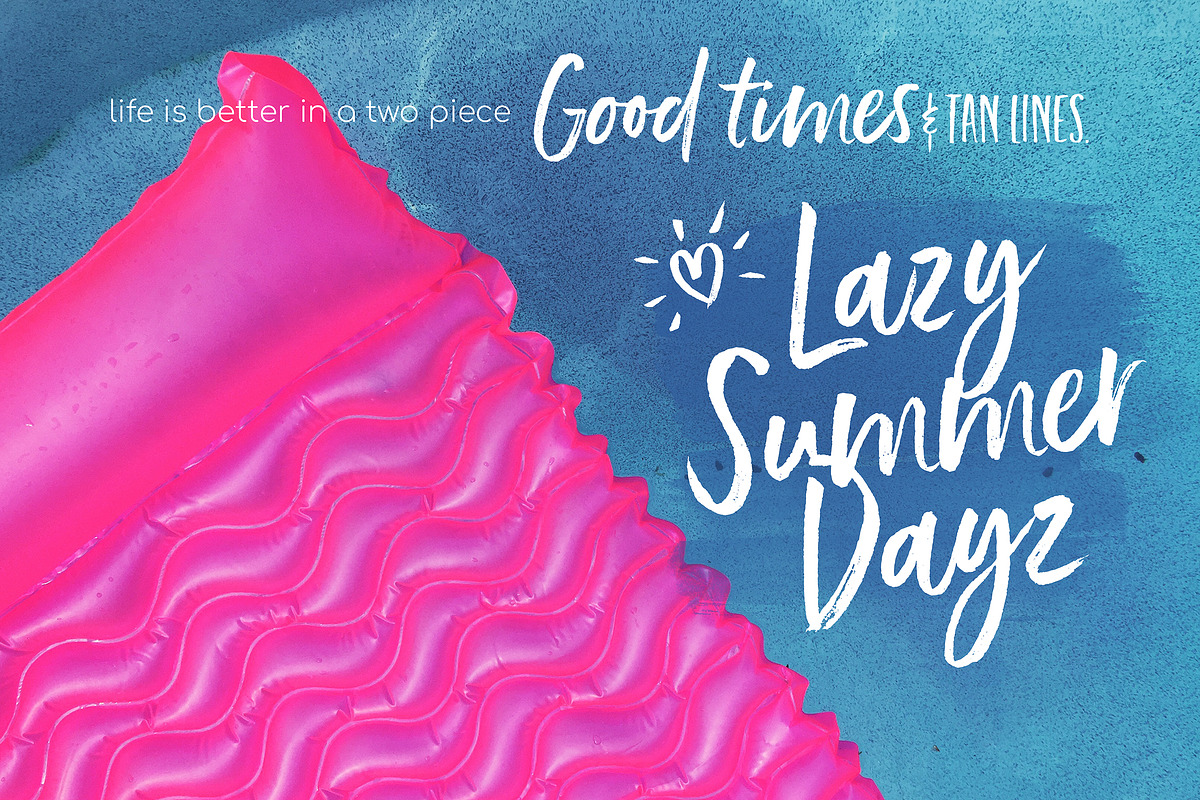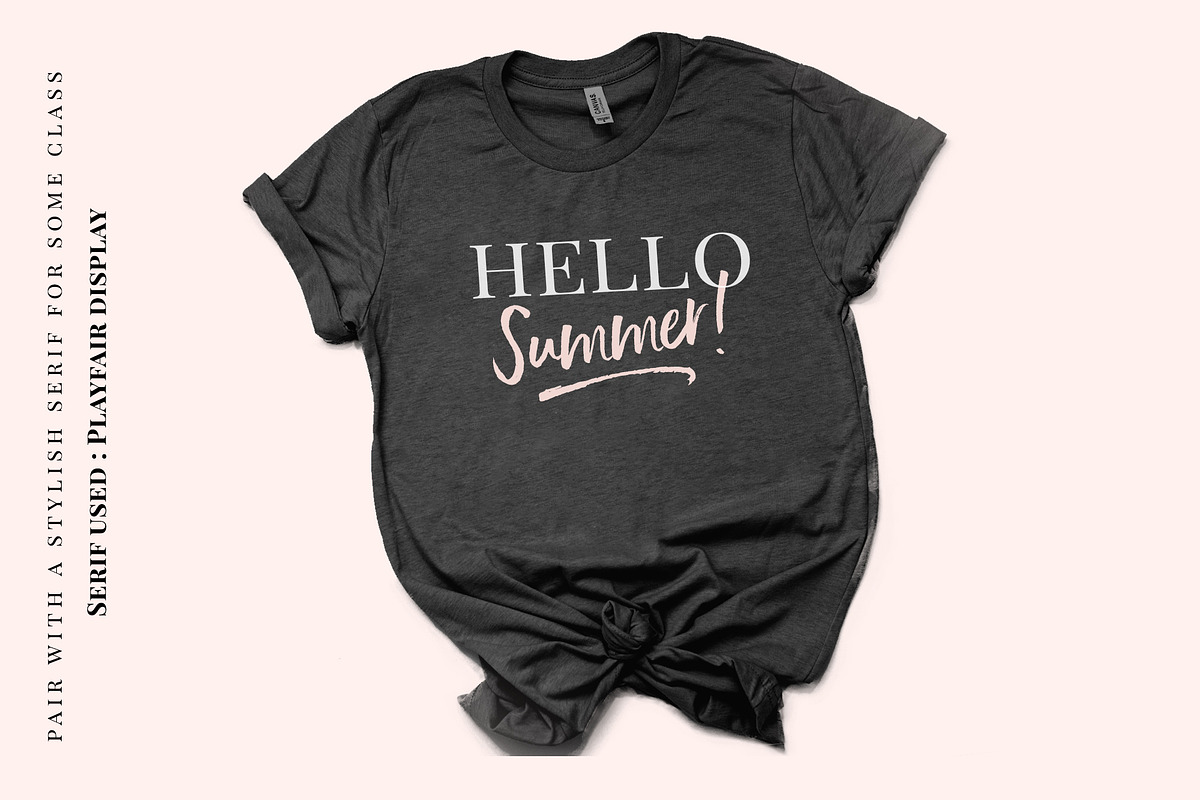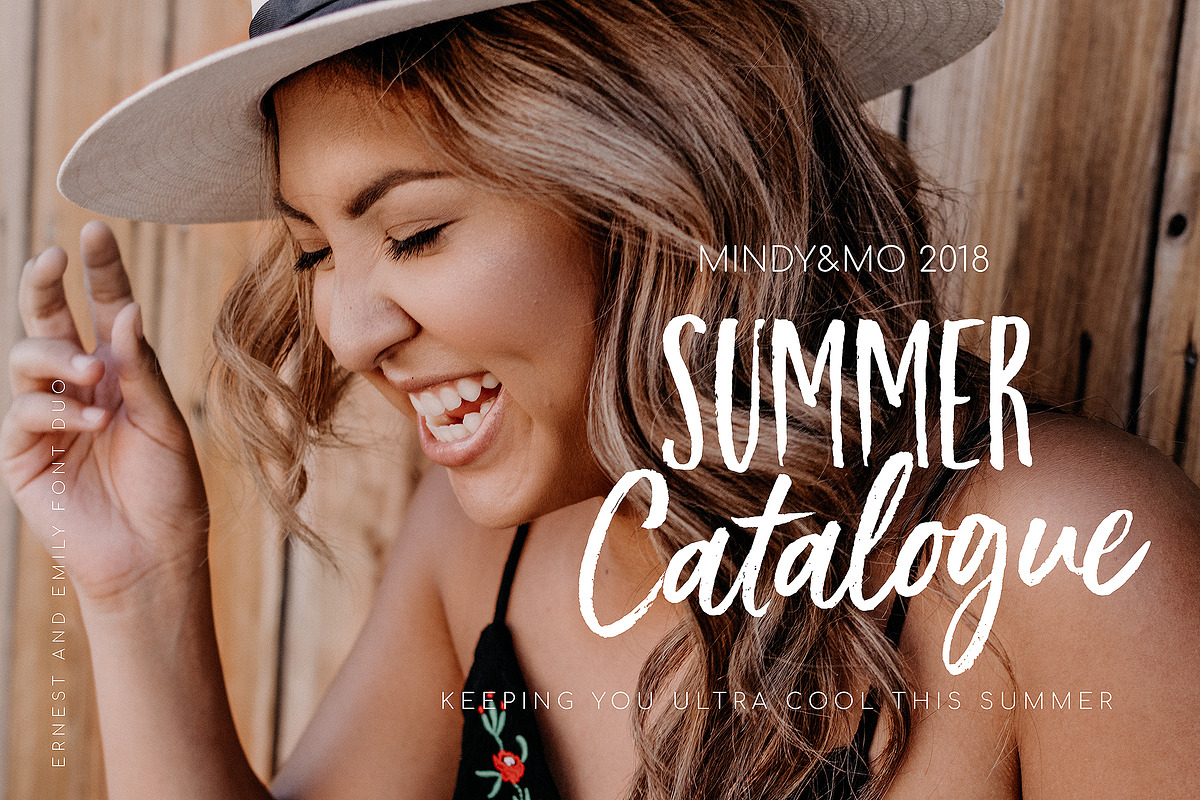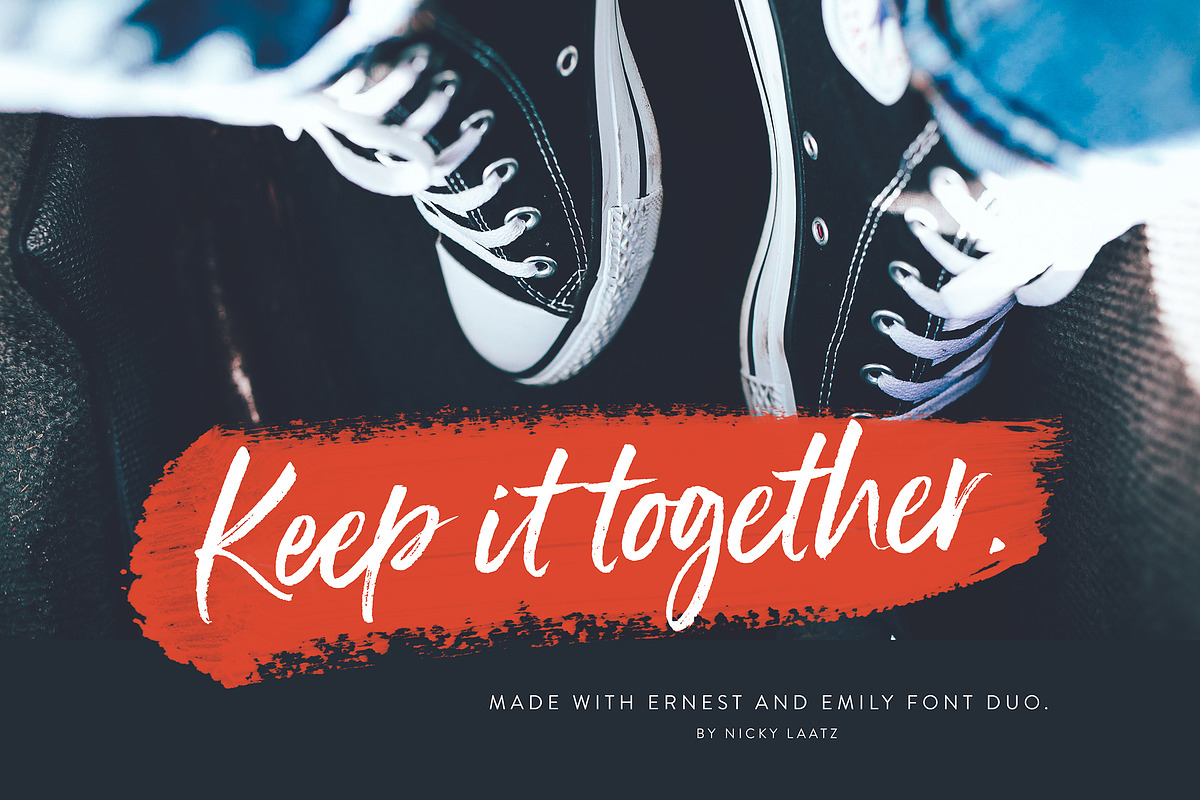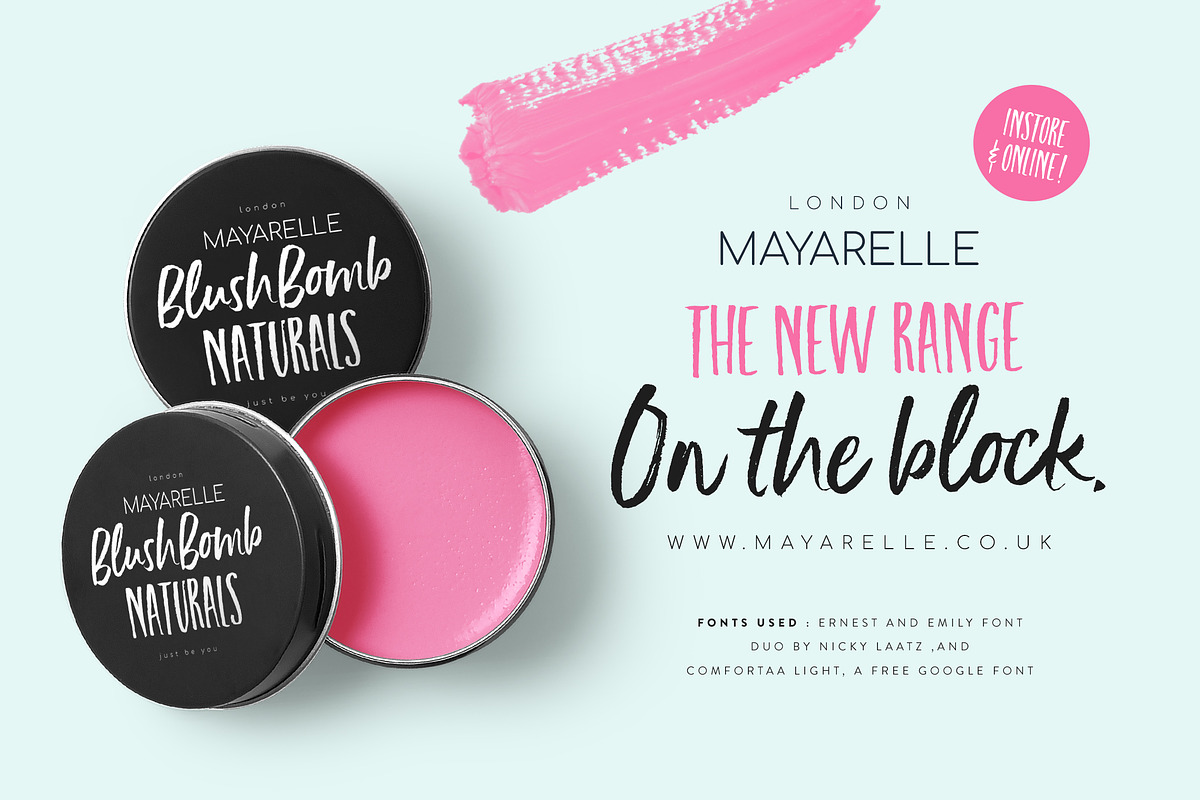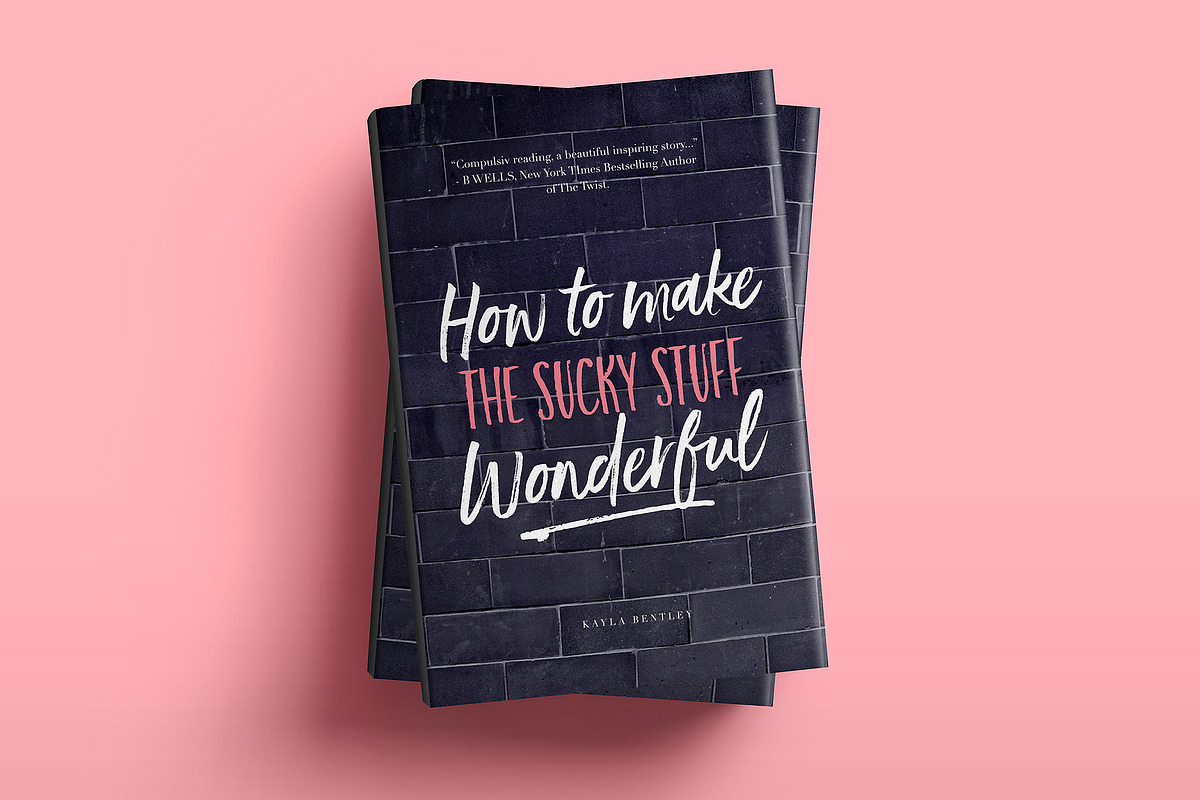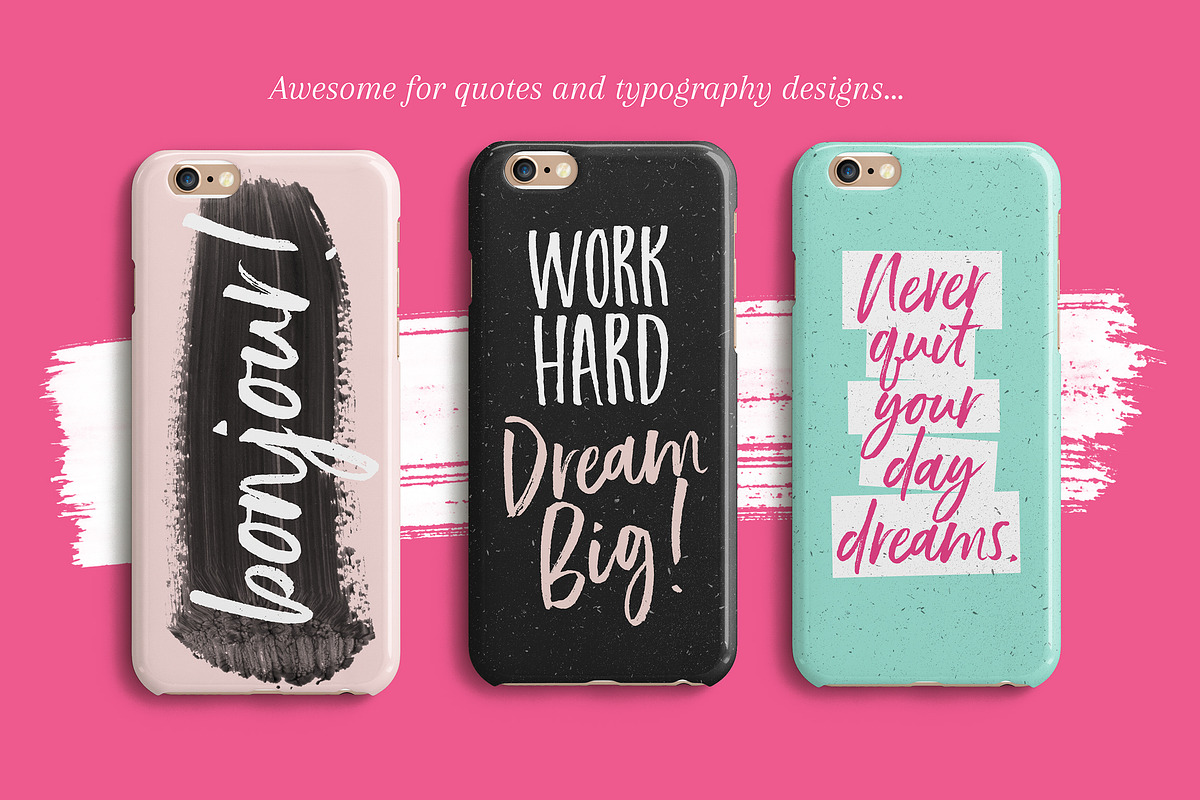
NEW!Ernest & Emily Font Duo
I'd like to introduce you to Ernest and Emily :) ....The happiest font do you'll ever meet :) They are completely in love with each other, and always get along like a house fire :)
Ernest and Emily consist of two lovingly handwritten fonts. A brushed quirky-casual script, and a playful all-caps sans serif font.
Perfect for Type-based creations, branding, websites, merchandise, packaging, quotes, invites, greetings, book covers, editorials and so much more! All they need is a blank canvas, and they work their magic for you!
The script comes in 3 variants - Regular, Slanted and Upright- each with its own twist to fit the look you need :)
Four sweet little heart glyphs can be found by typing the characters { } and [ ] individually :)
If you prefer a solid version of the script - that is included also as a separate text file with a download link.